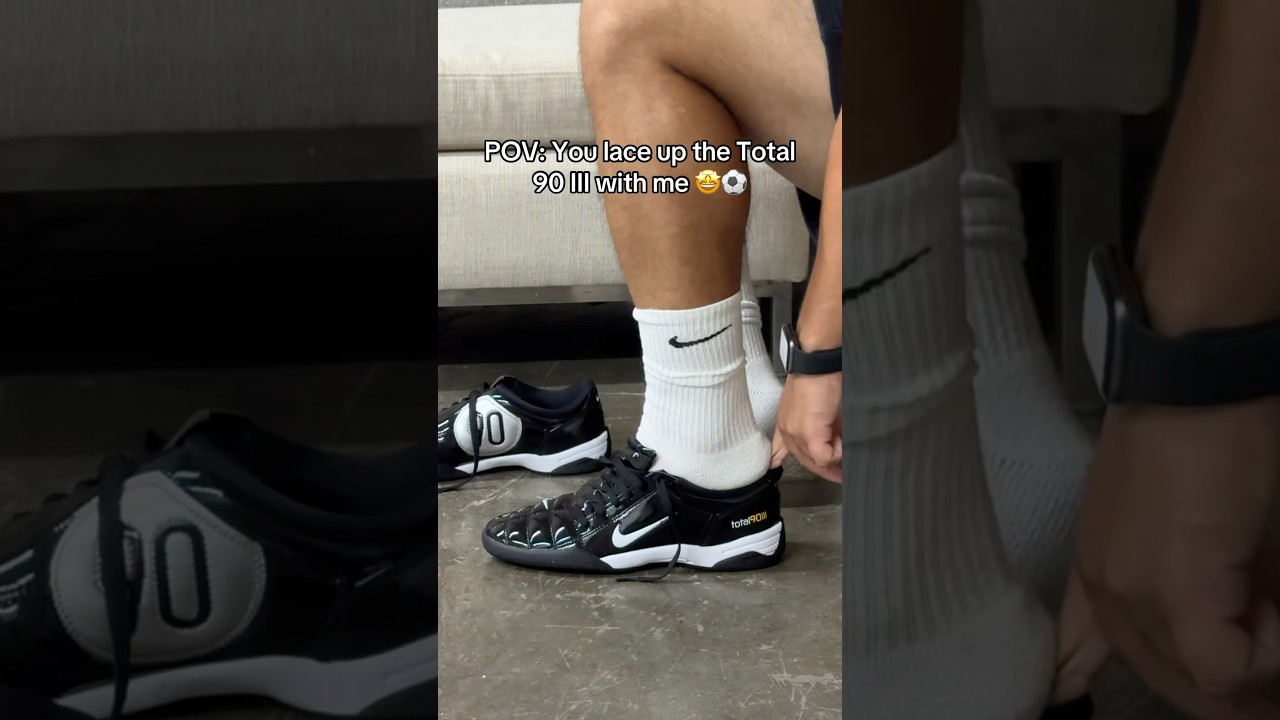
Nike 90 Font Dafont
Nike 90 Font Dafont This was worked to stamp nike clothes!. Download free nike 90 font, view its character map and generate text based images or logos with nike 90 font online.
Nike 90 Font Dafont Nike 90 is a font created for nike inc. this idea was think about the ancient way of writing in mesopotamia, cuneiform writing. this was worked to stamp nike clothes! website: facebook felipe.pajau aaaaaa 45px nike 90 regular. Nike font download is available free from fontget. nike is a sans serif type font that can be used on any device such as pc, mac, linux, ios and android. this font has 1 variant available. If you are looking to download the nike90 font for free, our website has it for you. additionally, our text generator allows you to preview the font's alphabet (uppercase and lowercase letters, special characters) online. 'find my font' is an easy to use application for identifying fonts in digital images.
Nike 2002 04 Font Dafont You can install the nike 90 font on any operating system. for security and to ensure that there is no malware or malicious software, the font file download is compressed in zip format. Nike 90 is a bold, dynamic display font that commands attention. its distinctive, handwritten inspired letterforms exude a sense of energy and movement, making it an ideal choice for attention grabbing headlines, logos, and branding applications. Nike total 90 regular font by dafontfree. file script name nike total 90.ttf download free for personal use. this fonts are authors' property, and are either shareware, demo versions or public domain. the licence mentioned above the download button is just an indication. Nike font generator & download is available free at fontbolt. try our text generator and create cool graphics for nike font, then you can save the font image to your pc, mac, linux, ios and android device.